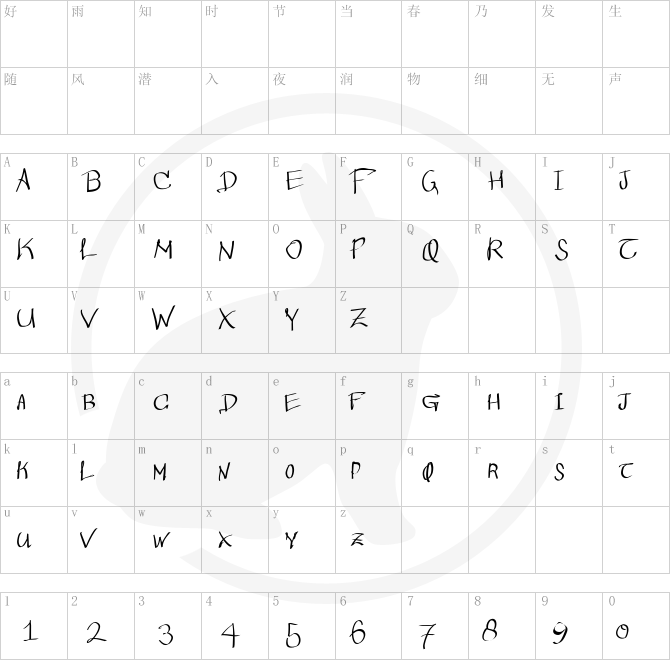
- Font Name:Wacomian
Wacomian-Regular.ttf is a very beautiful artistic font, Wacomian-Regular.ttf is widely used in the design and printing of various books and pictures,Wacomian-Regular.ttf has a strong visual impact,Wacomian-Regular.ttf is a commonly used font in newspapers, magazines and books, and is used in posters, e-commerce Poster design, store design, logo design, font design and other fields.Wacomian-Regular.